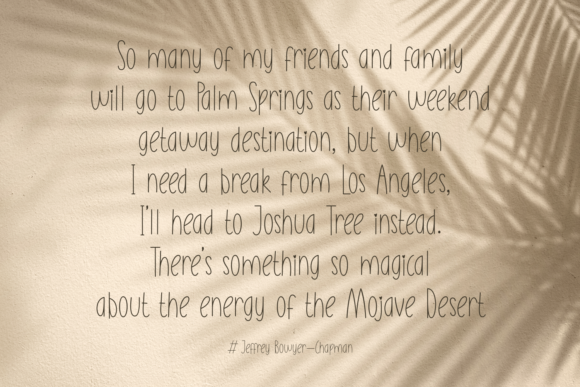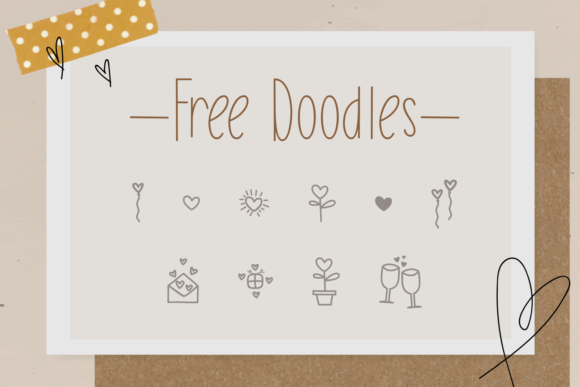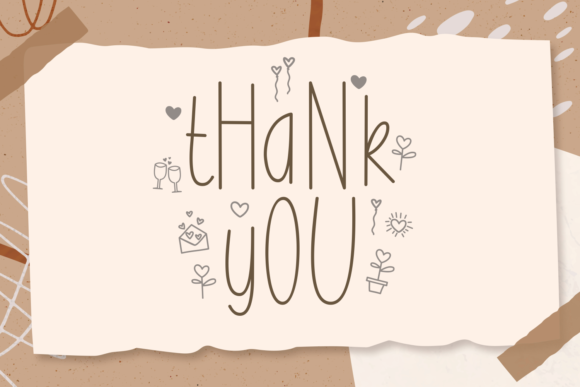
Introduction to Misslia Font
Have you ever found yourself stuck in a design rut, searching for the perfect font to bring your creative project to life? As designers, we’ve all been there. But sometimes, all it takes is one discovery to spark inspiration. For me, that moment came when I stumbled upon the Misslia Font, a stunning handwritten font that has since become a go-to design resource.
With its delicate characters and sleek design, the Misslia Font is a high-quality addition to any designer’s toolkit. Whether you’re working on a branding project, creating storybooks, or designing stationery, this font is sure to add a personal touch that will leave a lasting impression. And the best part? The Misslia Font is available for free download, making it an accessible and valuable resource for designers of all levels.
One of the standout features of the Misslia Font is its transparent background, allowing you to easily layer and manipulate the design to suit your needs. Whether you’re a seasoned pro or just starting out, this font is sure to be a valuable addition to your design arsenal.
Key Features of Misslia Font
- High-quality, professional design suitable for various creative projects, including logos, branding materials, and digital art.
- Designed with a unique, modern aesthetic, making it an ideal choice for designers seeking a distinctive look for their projects.
Honest Review: Misslia Font
As a designer, I’m always on the lookout for high-quality design resources to elevate my creative projects. Recently, I had the chance to work with the Misslia Font, and I must say it’s been a game-changer. This font is perfect for anyone looking to add a touch of elegance and sophistication to their designs.
Here are some of the things that worked well for me:
- ✨ The font’s clean and minimalist design makes it incredibly versatile and easy to use.
- ✨ The transparent background allows for seamless integration with any design element.
- ⚠️ The font may not be suitable for projects that require a bold or dramatic font style.
- ⚠️ Some users may find the font’s simplicity too generic, lacking a unique personality.
Overall, I’m thoroughly impressed with the Misslia Font. It’s a solid choice for designers looking for a high-quality, free design resource. With its versatility and elegant design, I’m confident it will become a staple in my design toolbox for years to come.
Misslia Font
Misslia Font is a high-quality design resource ideal for creative projects that require a touch of elegance and sophistication. This versatile font is available for free download and features a transparent background, making it easy to customize and integrate into your design.
Tips for Getting the Most Out of Misslia Font
To get the most out of Misslia Font, try combining it with other high-quality design resources and experimenting with different font sizes and styles.
Common Use Cases for Misslia Font
Misslia Font is commonly used in creative projects such as wedding invitations, business cards, and social media graphics.